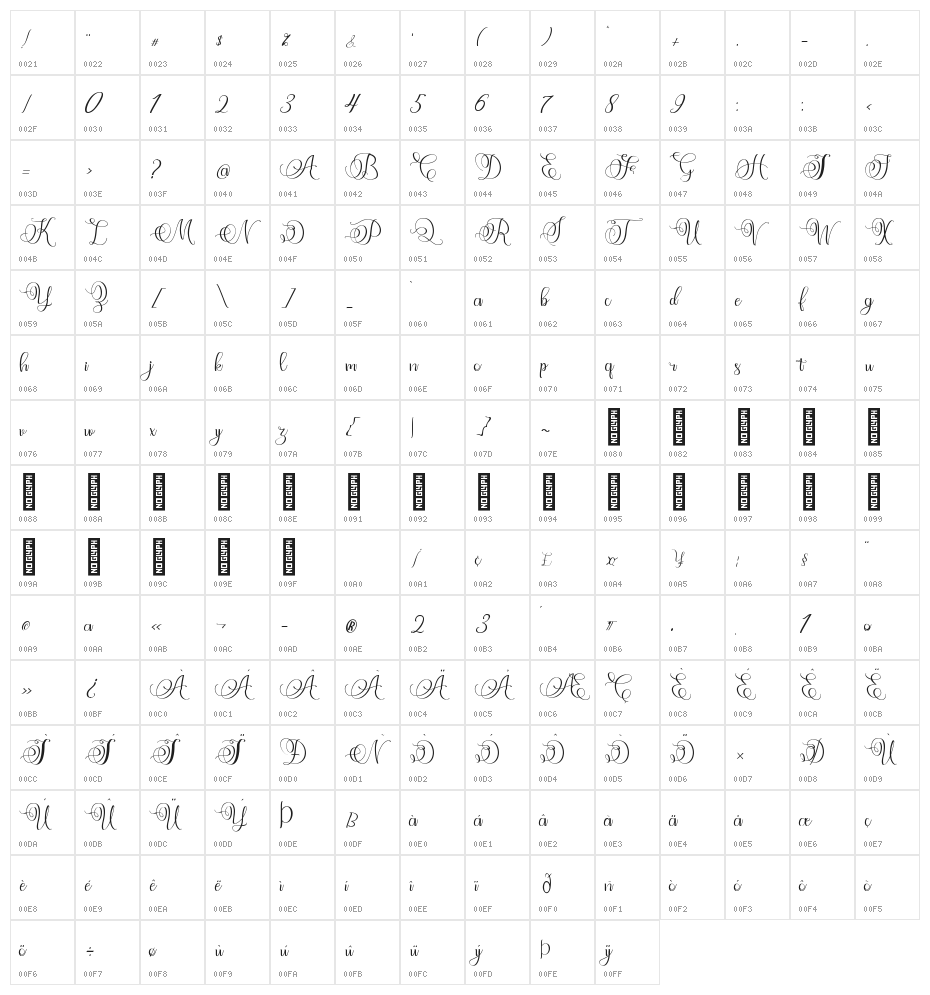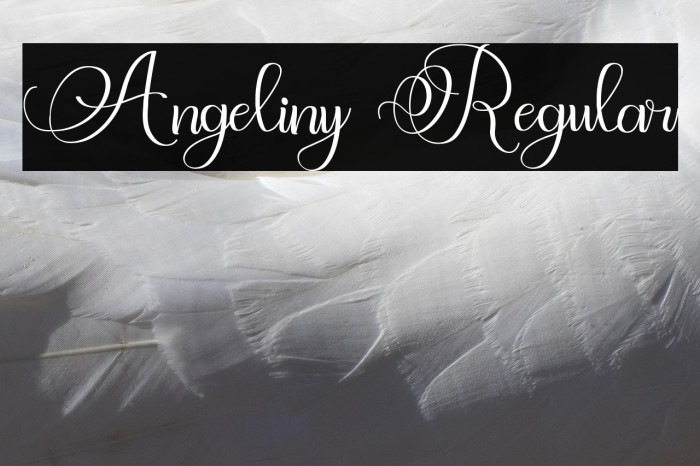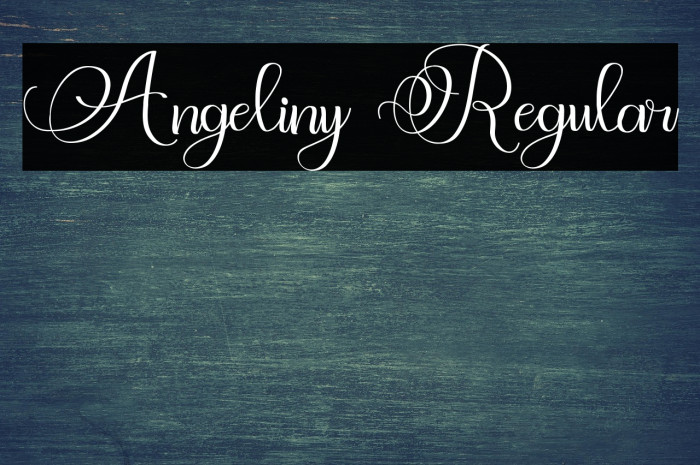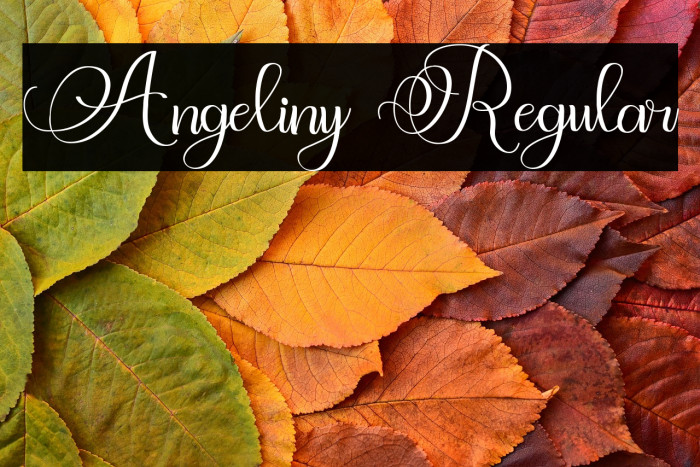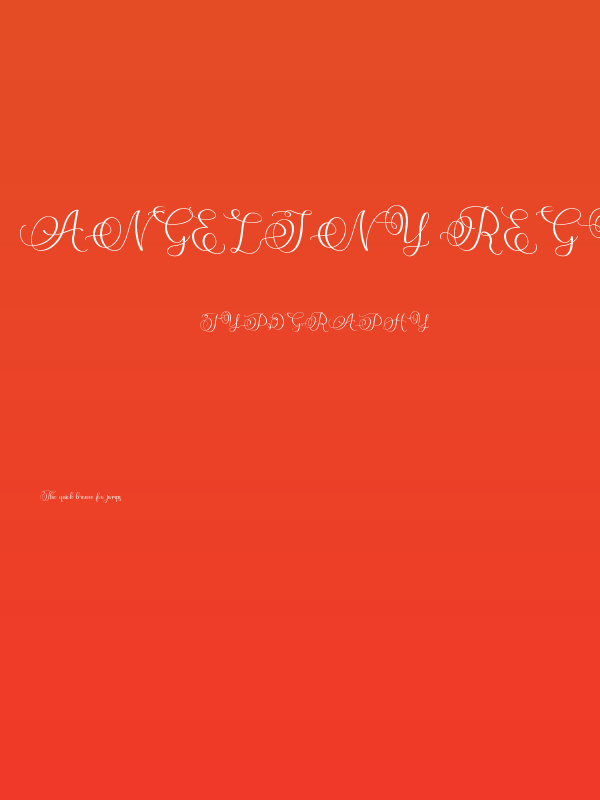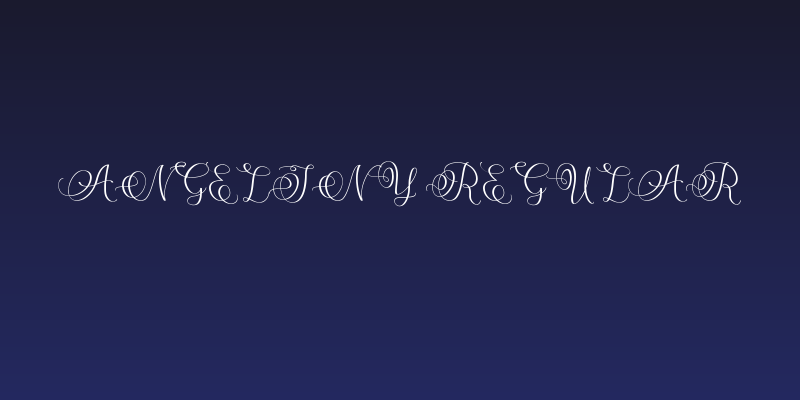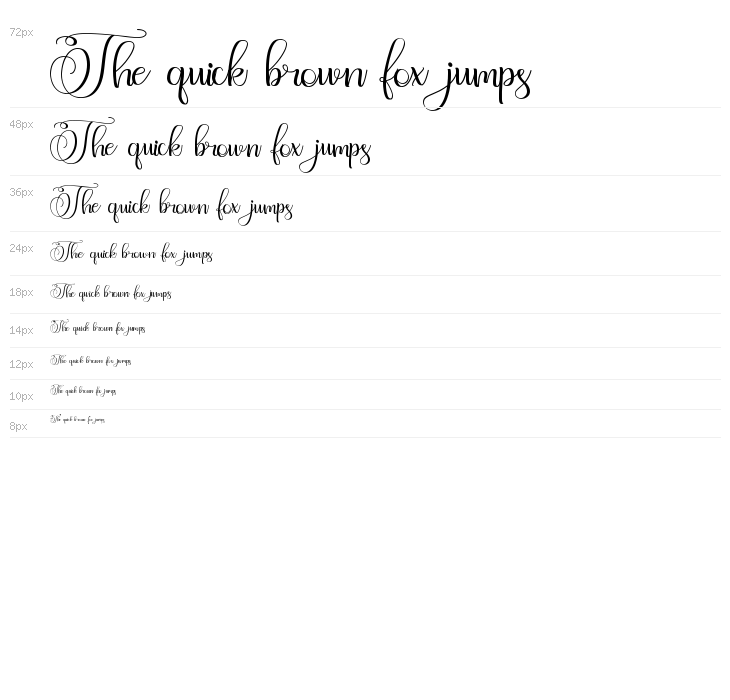
Angeliny Regular Font
Angeliny Regular Description
This font features an elegant and flowing script style, characterized by its intricate swirls and loops that give it a sophisticated and decorative appearance. The uppercase letters are particularly ornate, with elaborate flourishes that extend beyond the baseline and cap height, creating a sense of movement and grace. The lowercase letters maintain a more consistent flow, with smooth, connected strokes that enhance readability while retaining a stylish flair. The numerals and special characters complement the overall aesthetic, offering a cohesive look across all glyphs. This font's delicate and artistic design makes it ideal for projects that require a touch of elegance and refinement.
| Proposed Projects | Wedding invitations, luxury branding, elegant stationery, and decorative headings. |